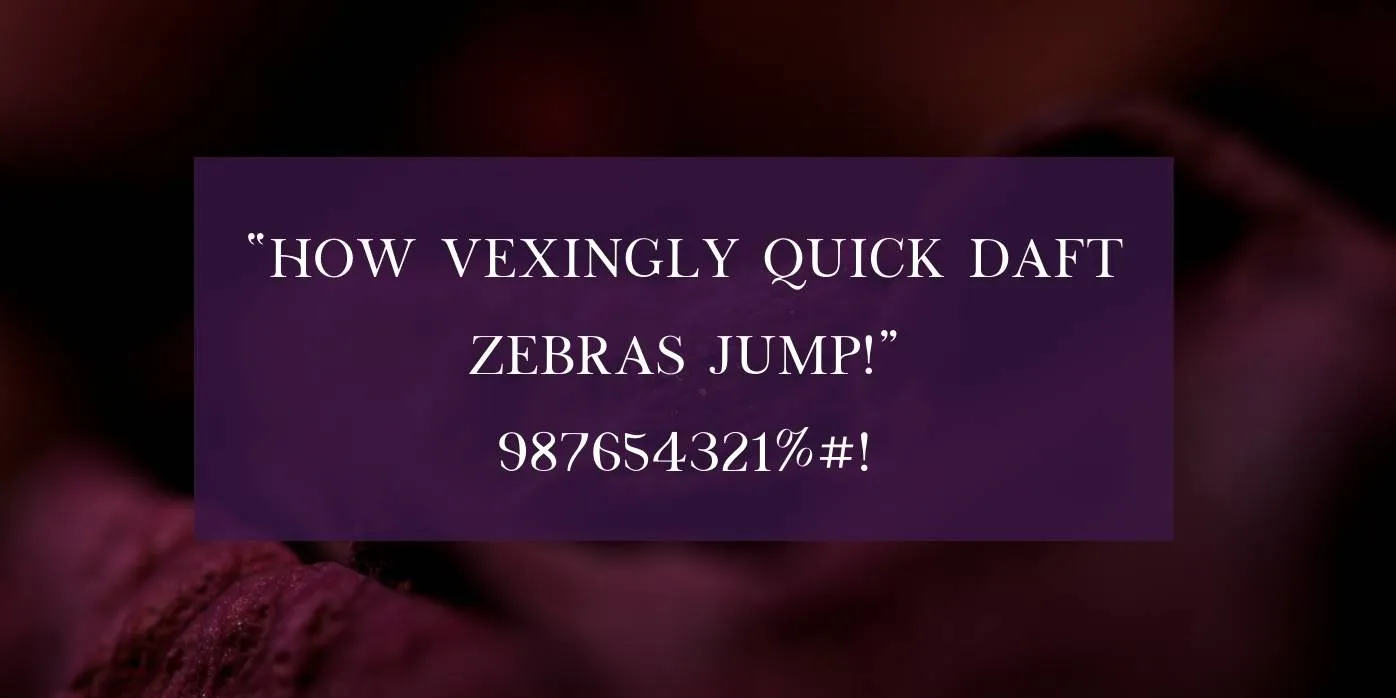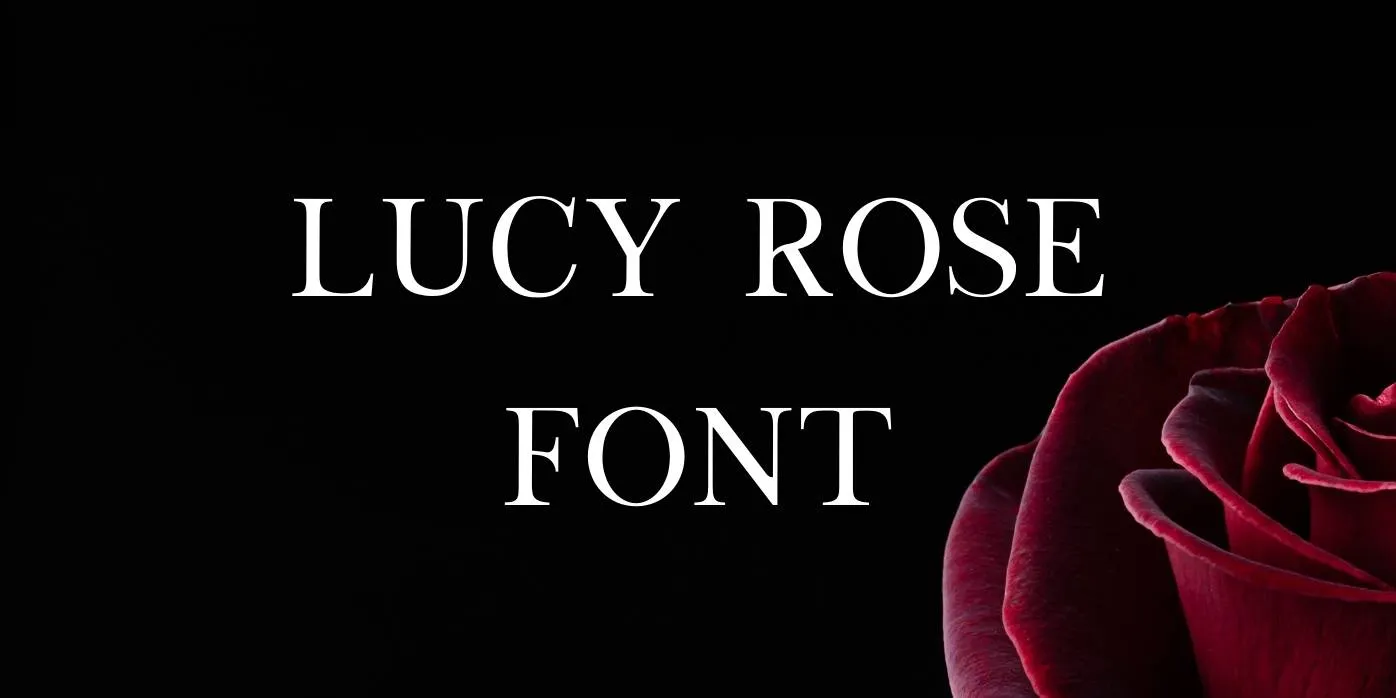
Lucy Rose Font
Today, we are going to present a modern typeface named Lucy Rose Font. This typeface belongs to the serif font family. This font was created by Type Associates in 2017. This stunning typeface has been designed specifically for use in web and print projects.
This font is a versatile font that can be used for both body text and headlines. It is available in both regular and bold weights. The regular weight is best suited for body text, while the bold weight is ideal for headlines. For more classic features, you will have to use its alternative aachen font which has the same features.
It includes a wide range of characters, including all the standard Latin characters, as well as Greek and Cyrillic characters. Its copy and paste function is perfect for many design projects. This font is a great choice for any web or print project that requires a modern, stylish serif font. This typeface will provide the facility of an online generator tool for graphic designs.